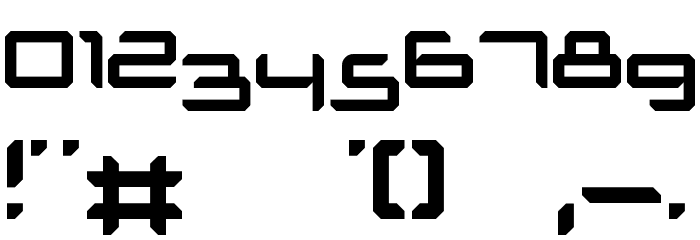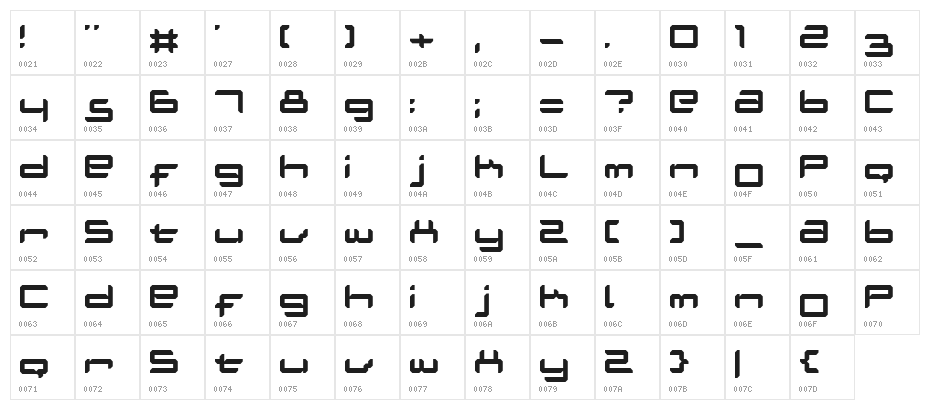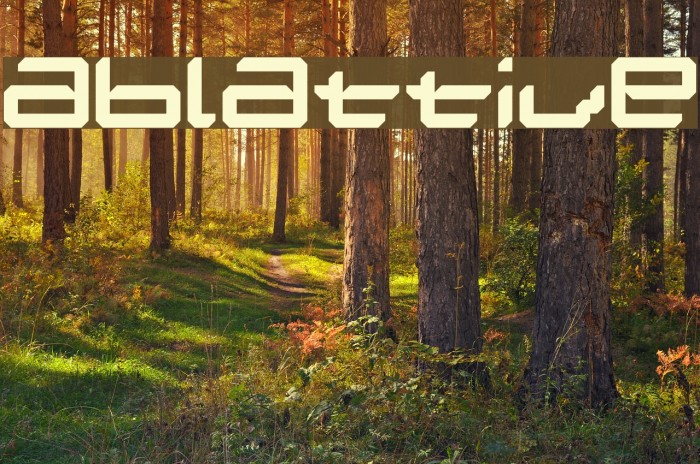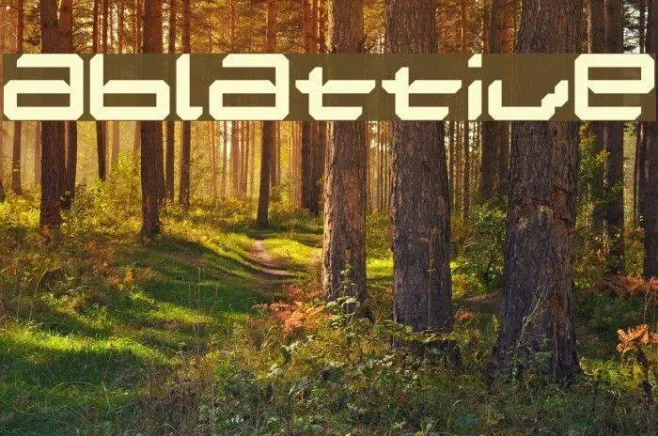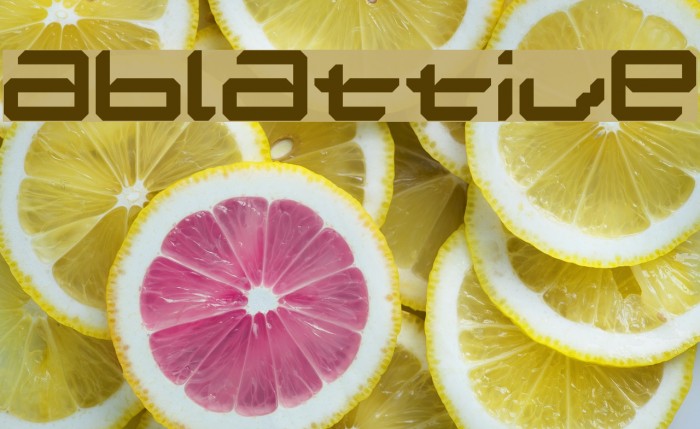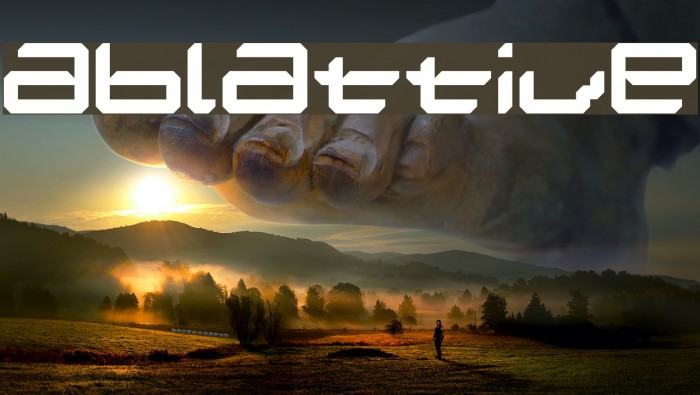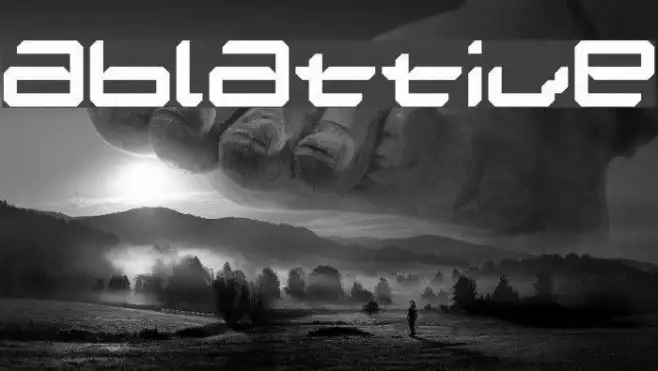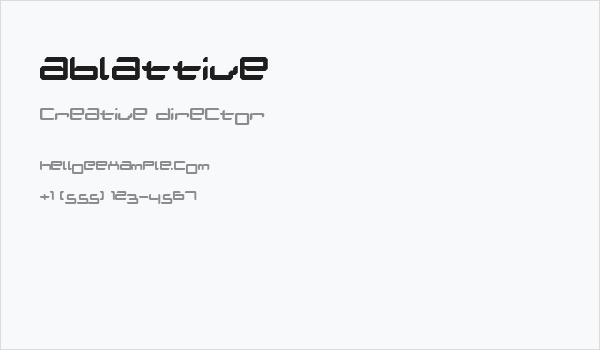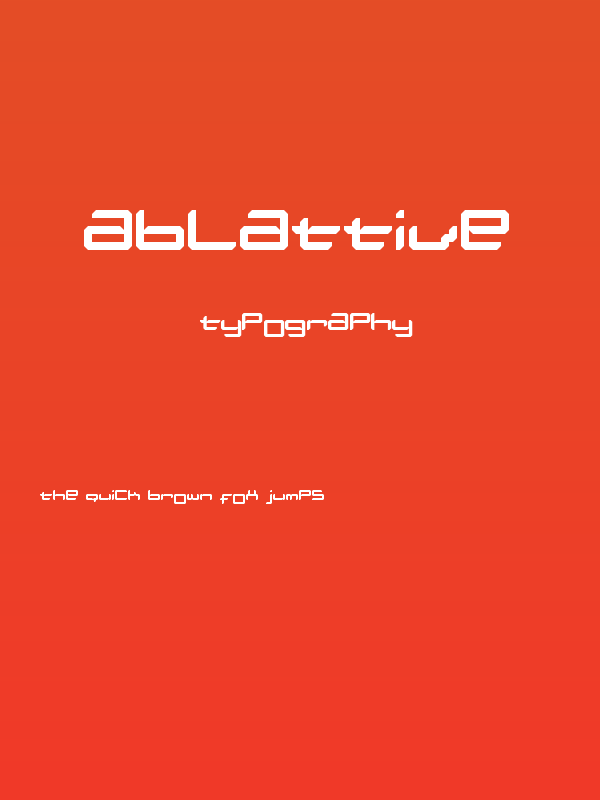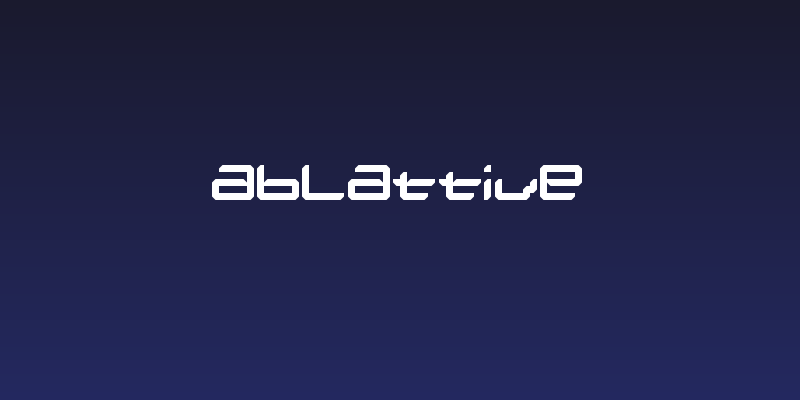
Ablattive Font
Ablattive Description
This font features a futuristic and geometric design with a distinct digital aesthetic. The characters are constructed with straight lines and sharp angles, giving it a modern and tech-inspired look. The uppercase and lowercase letters share a consistent style, maintaining uniformity across the alphabet. Numbers and special characters follow the same design principles, ensuring a cohesive appearance. The font's unique structure makes it stand out, ideal for projects that require a contemporary and innovative touch.
| Proposed Projects | Ideal for technology branding, video game interfaces, sci-fi posters, and digital art projects. |